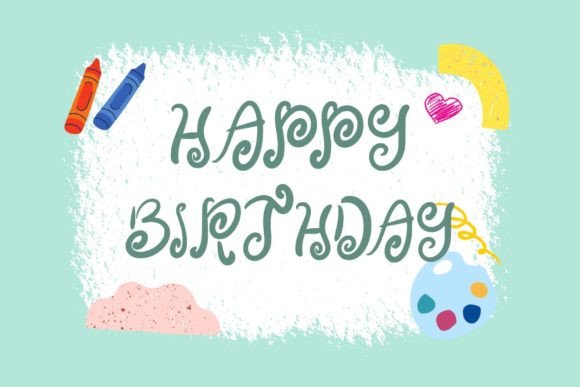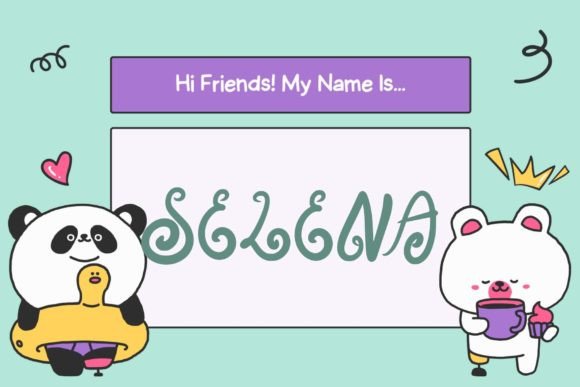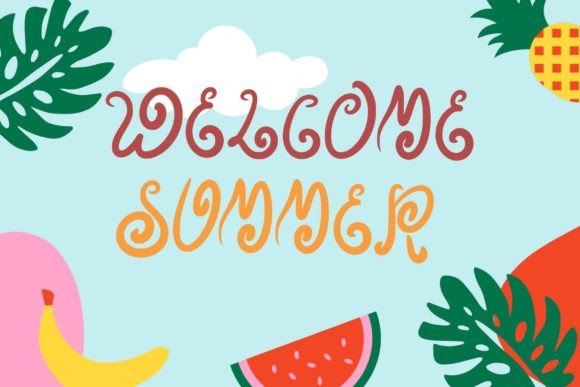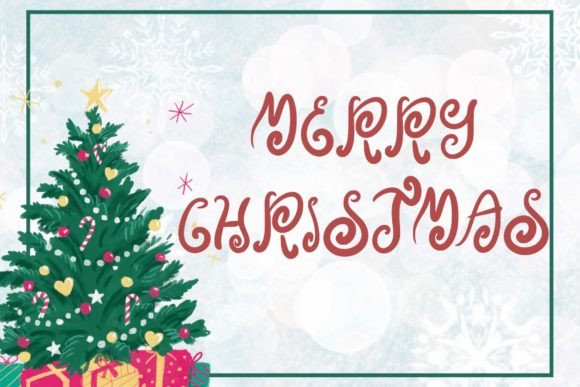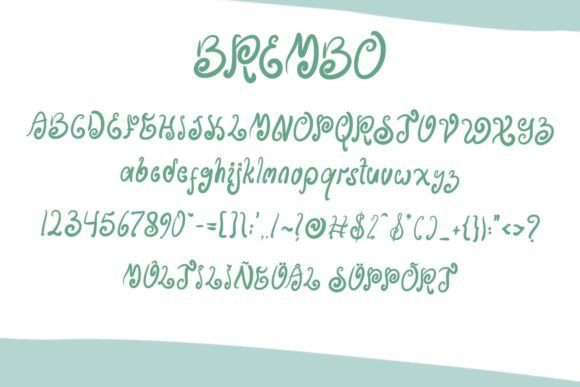
The Curly Delight of Brembo Font: A Designer’s New Best Friend
I’ll never forget the time I was working on a children’s book project, and my client asked me to create a whimsical title page that would capture the essence of their story. I spent hours scouring the internet for the perfect font, but nothing seemed quite right. That was until I stumbled upon the Brembo font. Its curly, elegant style instantly won me over, and I knew I had found the perfect fit for my project.
An Honest Review of Brembo Font
- ✨ Unique and elegant curly style that’s perfect for creative projects
- ✅ Multilingual support, making it a great choice for global designs
- ✅ Uppercase, lowercase, numerals, punctuation, and more – it’s got everything you need
- ✨ Perfect for a wide range of themes, from children’s books to holiday designs
While I absolutely love the Brembo font, there are a few things to keep in mind. For example, ⚠️ some of the curly details can get a bit lost at smaller font sizes. Additionally, 🤔 it might not be the best choice for very formal or professional designs, as it’s quite playful and whimsical.
The Backstory of Brembo Font
While I couldn’t find any information on the exact origins of the Brembo font, I like to imagine that it was created by a designer who loves whimsy and playfulness. Perhaps they were inspired by the curly details of handwritten letters and set out to create a font that would bring joy to designers and readers alike.
| Font Name | Brembo Font |
| Author | yogaletter6 |
Q: What type of designs is Brembo font best suited for?
A: Brembo font is perfect for creative projects like children’s books, holiday designs, animal themes, and more. Its curly style adds a touch of whimsy and playfulness to any design.
Q: Does Brembo font support multilingual characters?
A: Yes, Brembo font supports multilingual characters, making it a great choice for global designs.
Q: Is Brembo font easy to read?
A: Brembo font is generally easy to read, especially at larger font sizes. However, some of the curly details may get lost at smaller sizes, so be sure to test it out before finalizing your design.